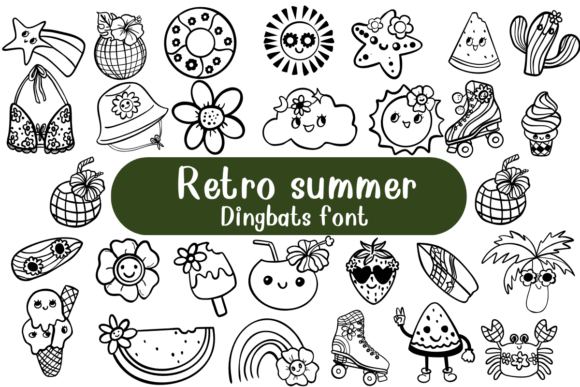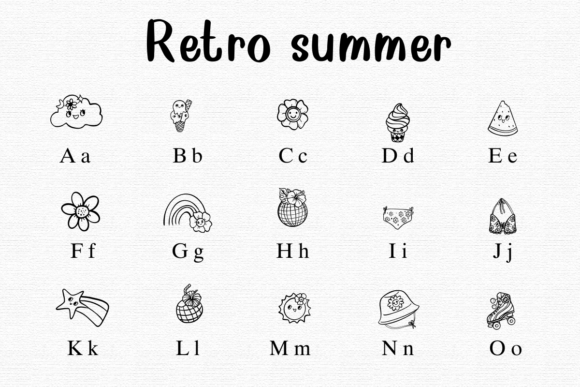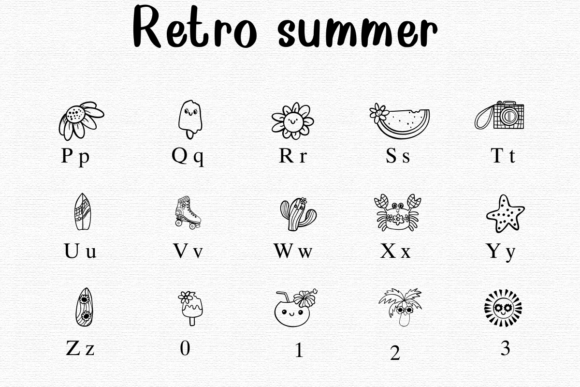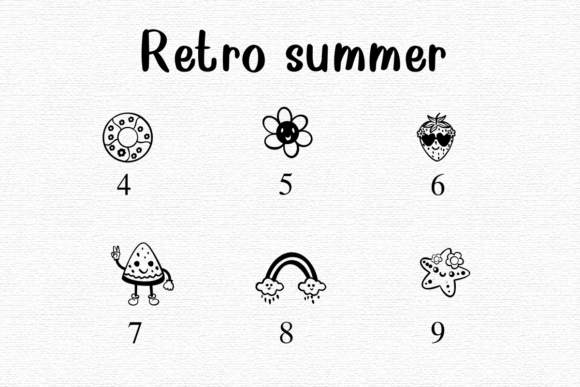
Retro Summer Font
About the Retro Summer Font
The wait is over! The incredible Retro Summer Font is now available for your design toolkit. Retro summer is a dingbats font with a relaxed theme. This font can enhance your creative projects such as wedding invitations, DIY, crafts, decorations, logos, and many other creative ideas.
Retro Summer’s playful, relaxed style makes it ideal for headlines, short text blocks on posters or packaging, and branding elements where a lighthearted, vintage feel is desired. It works exceptionally well for projects focused on summer themes, events, or products with a nostalgic aesthetic. However, its decorative nature makes it unsuitable for body text or UI elements requiring high readability.
Consider pairing Retro Summer with a clean sans-serif like Open Sans for a balanced contrast, or a classic serif such as Garamond for a more refined look. For a bolder statement, a geometric sans-serif like Futura could be effective. Avoid pairing it with other highly decorative fonts, as this can create visual clutter.
The overall personality of Retro Summer is cheerful and nostalgic, evoking feelings of warmth and summer fun. This makes it well-suited to brands and projects targeting a youthful or playful audience.
Retro Summer Font Example